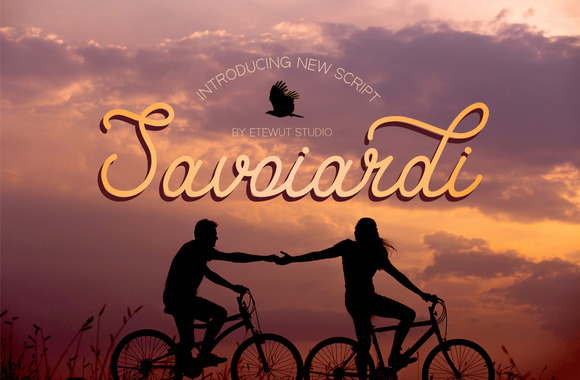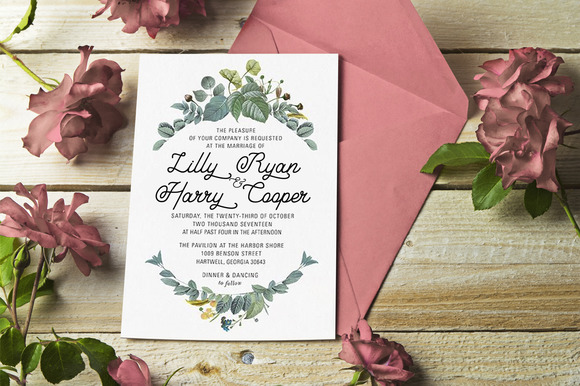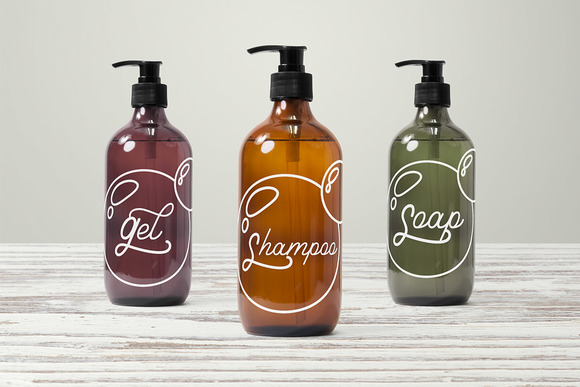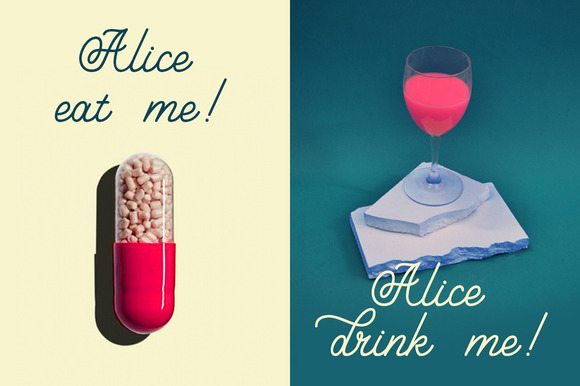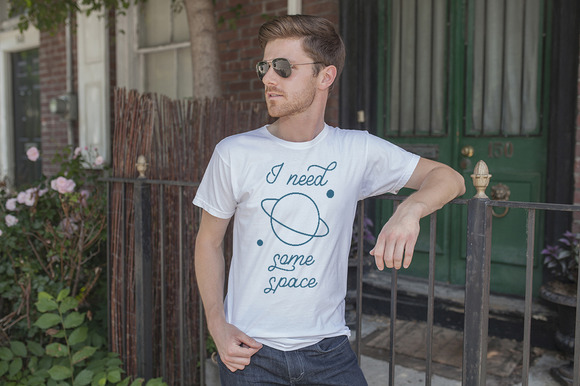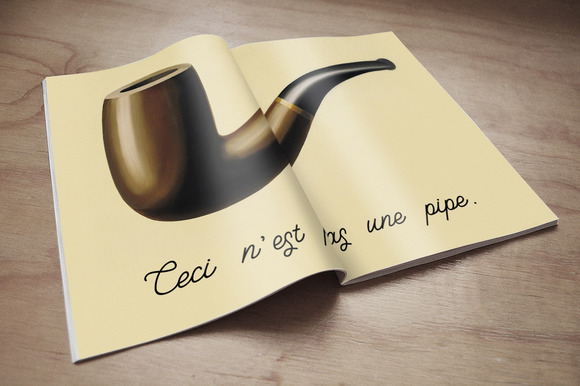
Savoiardi Script Font
About Savoiardi Script Font
Savoiardi Script is a mono line script font created by Etewut.
Contains alternate swashes, is PUA encoded and has multi-lingual support.